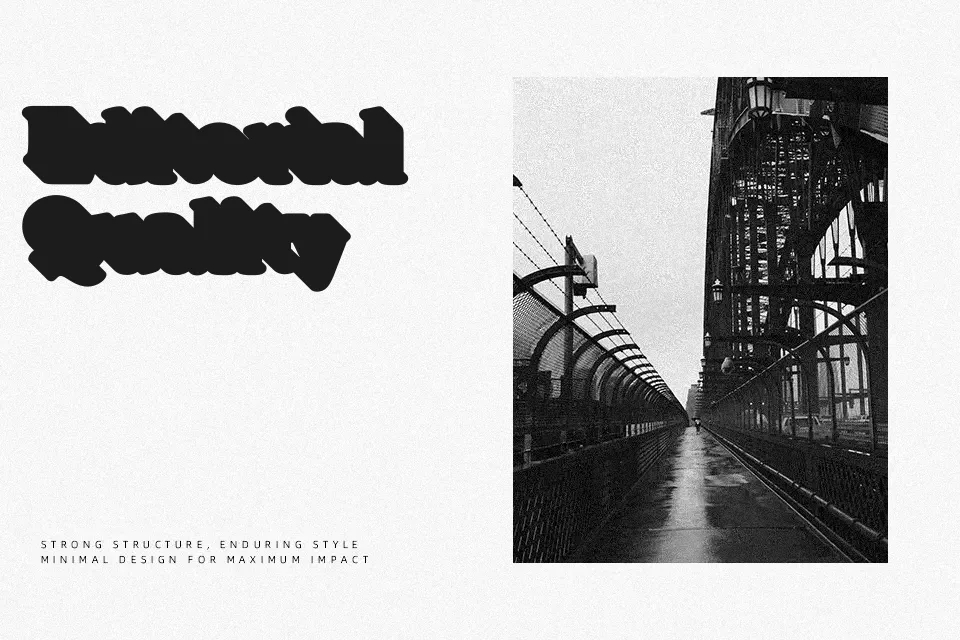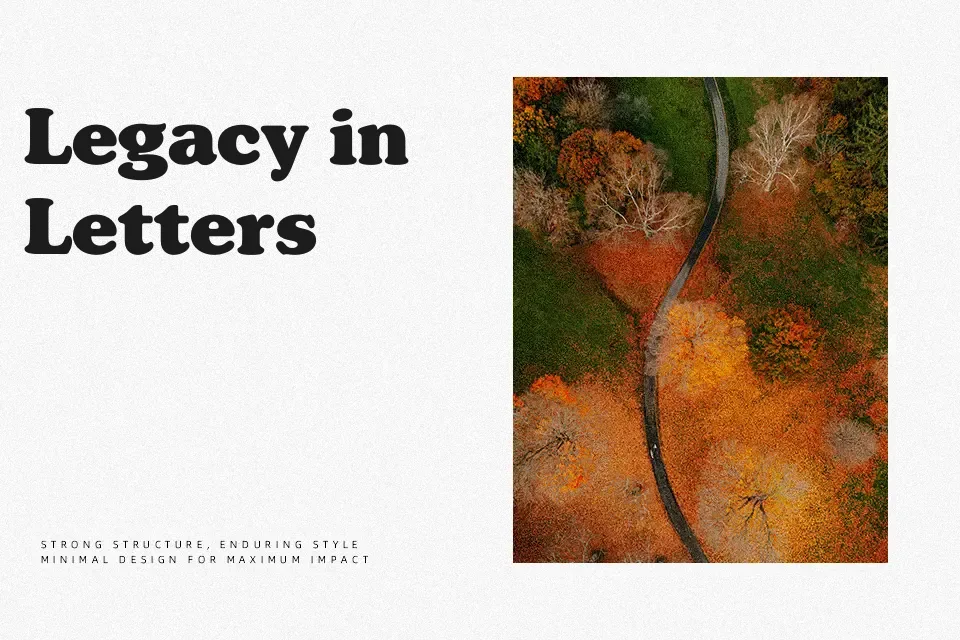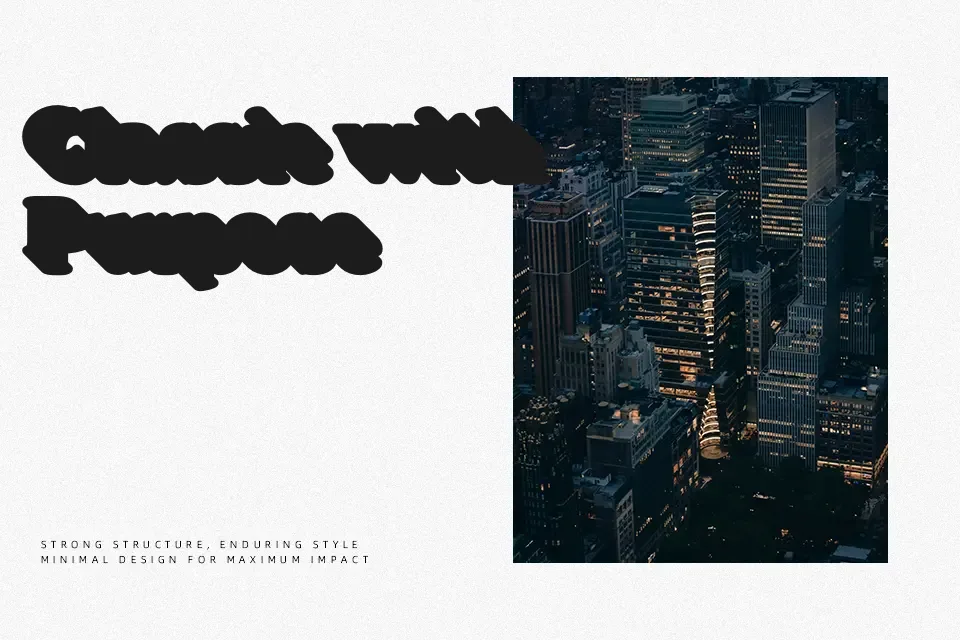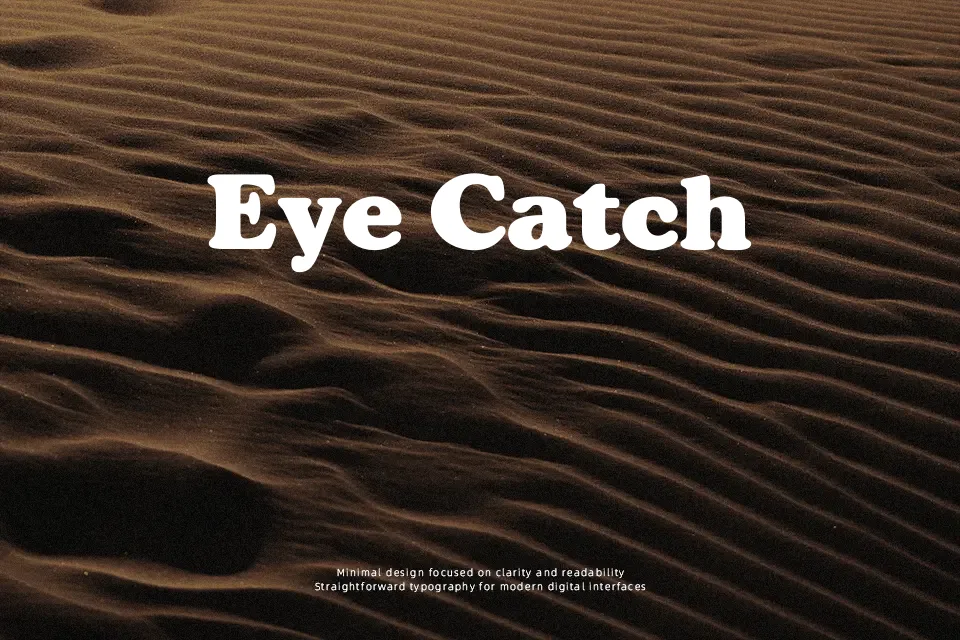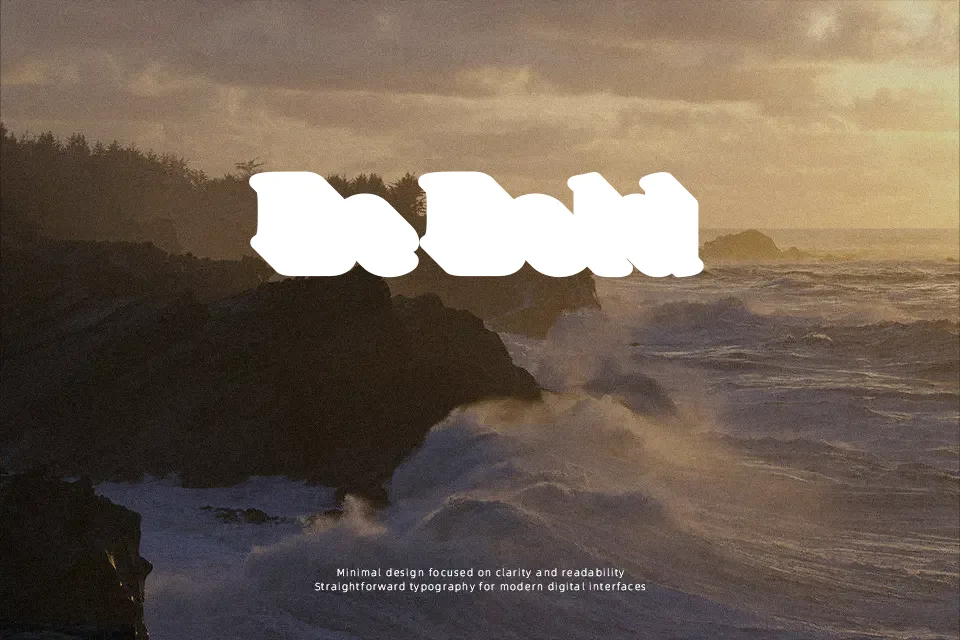
Soulway Font
Designed by Indieground Design
Soulway Font uses broad serif letterforms, thick curved strokes, and compact, rounded proportions to create a strongly retro display look. Its substantial shapes remain easy to recognize in large headlines, while the close visual rhythm gives words a dense, unified presence. The available uppercase, lowercase, numerals, and basic punctuation suit short titles and prominent graphic text. It works particularly well for music artwork, packaging, and poster compositions that need a vintage character. Decorative weight and compact forms make the typeface less comfortable for small copy or extended reading.
Best For: vintage product packaging,music poster headlines,album artwork,retro restaurant signage
Perfect for headline, logo, and music, with a artistic and decorative style.